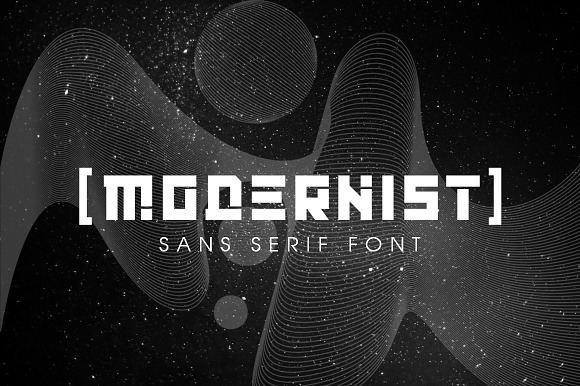
Modernist | Two Weight Font Family
Modernist - sans serif font
Two Weight Font Family
Why Modernist | Two Weight Font Family is worth a look
Modernist | Two Weight Font Family by Hurski Anton fits naturally into Branding, posters, packaging, typography.